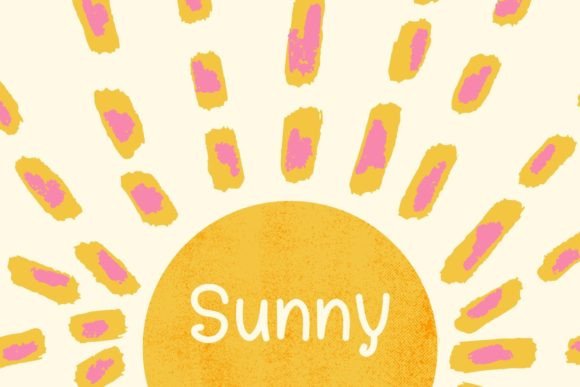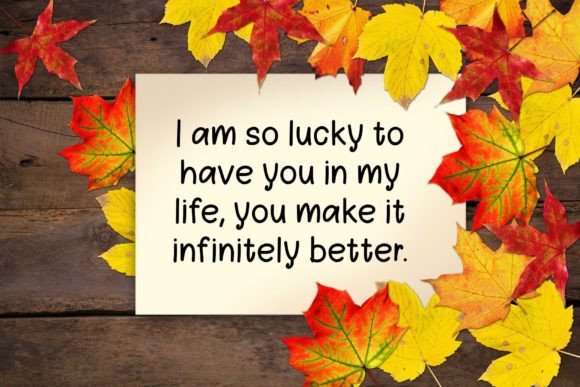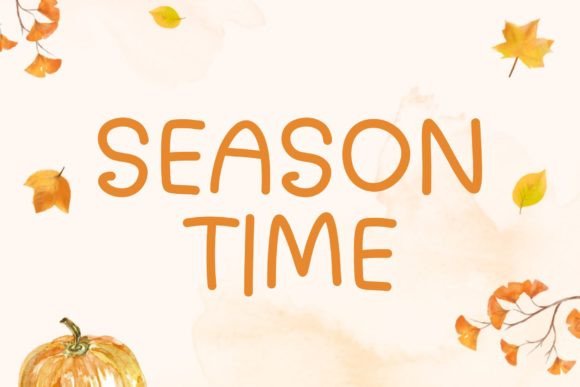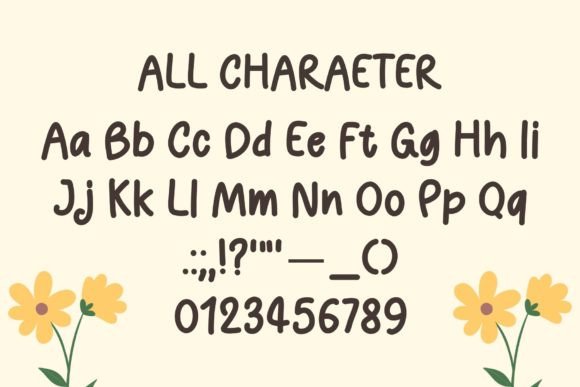
Introduction to Season Time Font
As I sat at my desk, staring at a blank canvas, I couldn’t help but feel a sense of stagnation. My creative project was stuck, and I needed something to spark inspiration. That’s when I stumbled upon the Season Time Font, a game-changing design resource that would change the course of my project forever.
With its captivating and versatile style, the Season Time Font allows designers to infuse their work with the essence of nature and the ever-changing world around us. Whether you’re working on a high-quality design or simply need a unique touch, this font is sure to elevate your project. Plus, with a transparent background and free download, it’s a valuable resource for designers of all levels.
Key Features of Season Time Font
- High-quality, unique font design ideal for creative projects and artistic expressions.
- Transparent background, allowing for easy layering and composition in design software.
- Unique characteristics: Season Time Font features a distinctive, hand-drawn style with intricate details, adding a touch of elegance and sophistication to any design.
Honest Review: Season Time Font
I recently stumbled upon the Season Time Font and was excited to incorporate it into my creative project. The first thing I noticed was the beautiful design and the variety of styles available. This font is perfect for any project that requires a touch of elegance and sophistication.
Here are some things that I particularly liked about the Season Time Font: ✨
- High quality design that exudes professionalism
- Transparent background, making it easy to layer and manipulate
- Perfect for creating a cohesive brand identity
- The font may not be suitable for all types of projects, particularly those requiring bold or playful typography
Overall, I’m thoroughly impressed with the Season Time Font. It’s a high-quality design resource that can elevate any creative project. While it may not be perfect for every project, it’s definitely worth considering for those looking to add a touch of sophistication and elegance to their design.
Season Time Font
Tips for Getting the Most Out of Season Time Font
Use the Season Time Font in conjunction with a transparent background to create a high-quality design. This font is perfect for creative projects that require a unique and eye-catching design. Experiment with different font sizes and colors to get the most out of this design resource.
The Season Time Font is perfect for use in greeting cards, invitations, and other design projects that require a seasonal or holiday theme. Its high-quality design and transparent background make it a valuable design resource for any creative project.